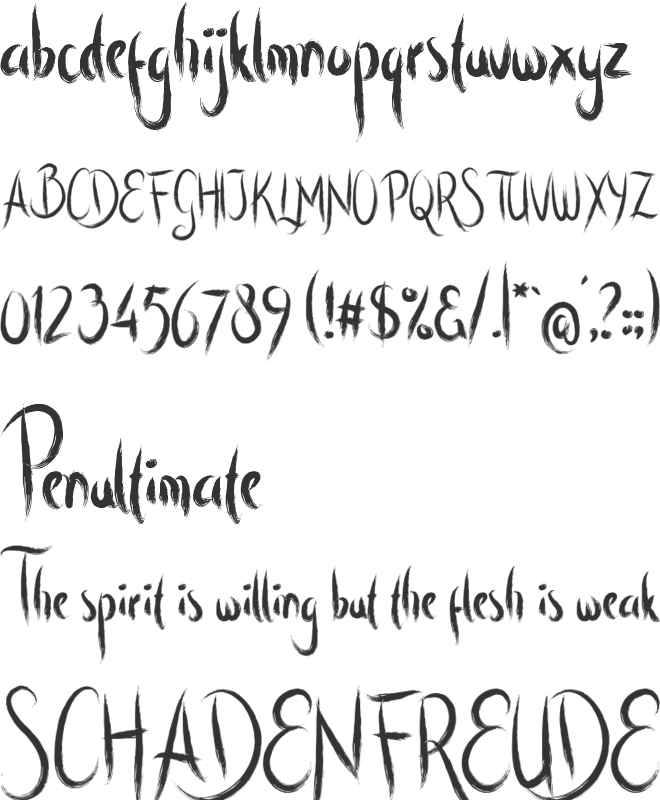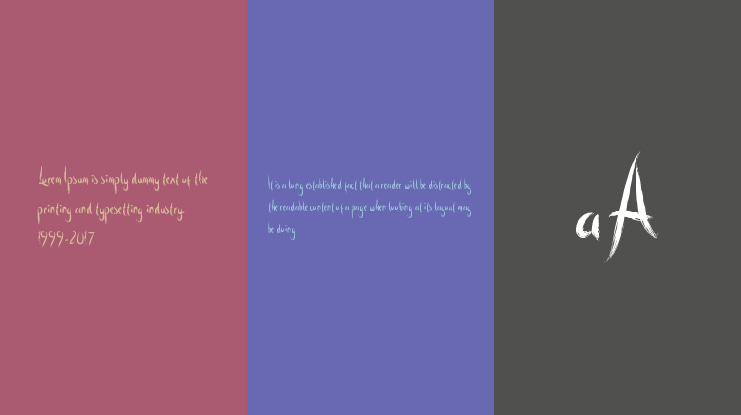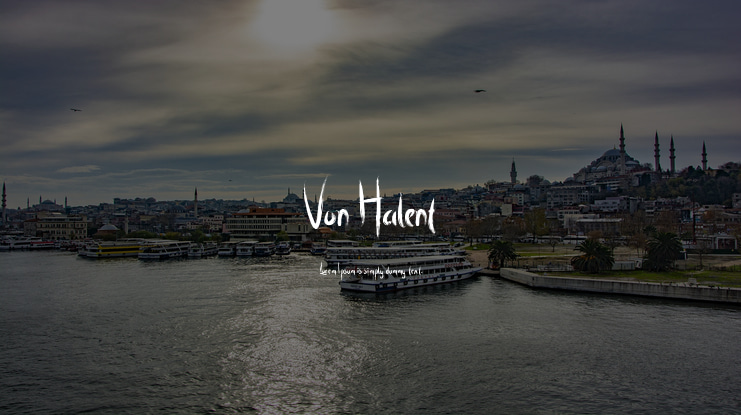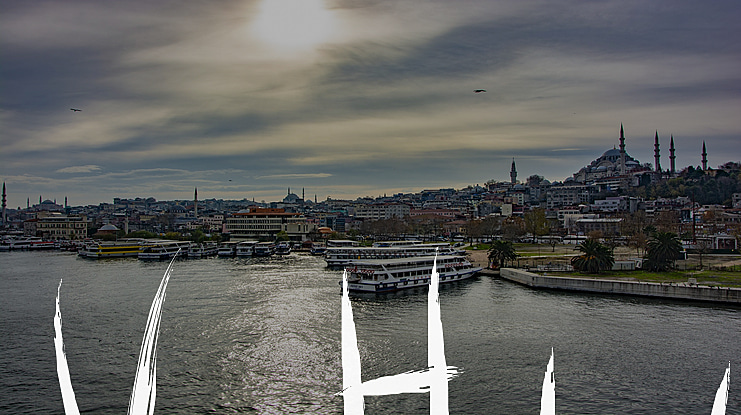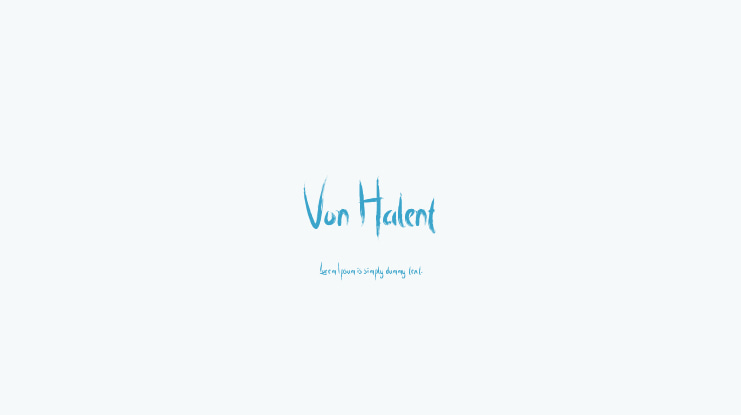
Von Halent Font
Introducing new nice brush font, it made use brush with thick paint. This font *support all basic Latin and all Eastern Europe characters*.
This font nice for rock style, grunge style, or just show how it made from brushes.
Featured with all caps at Titling Alternates option